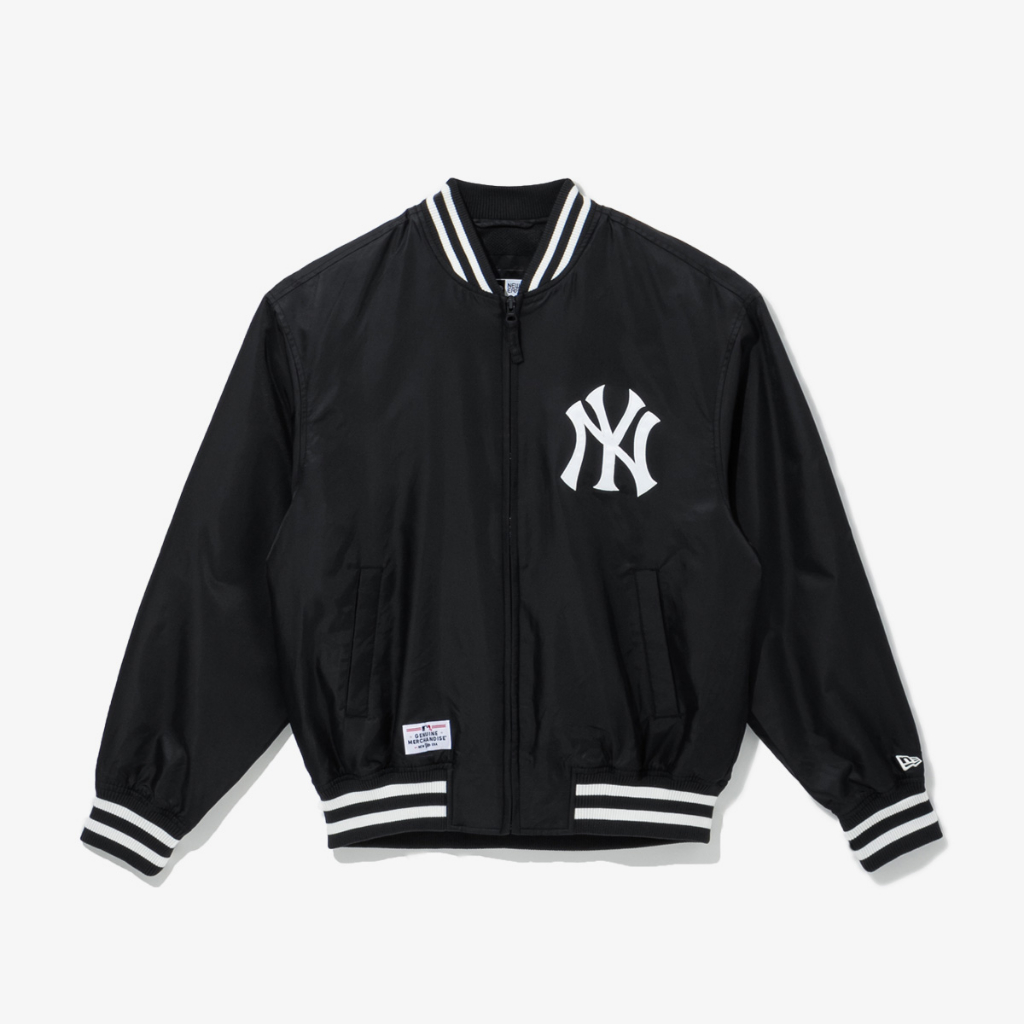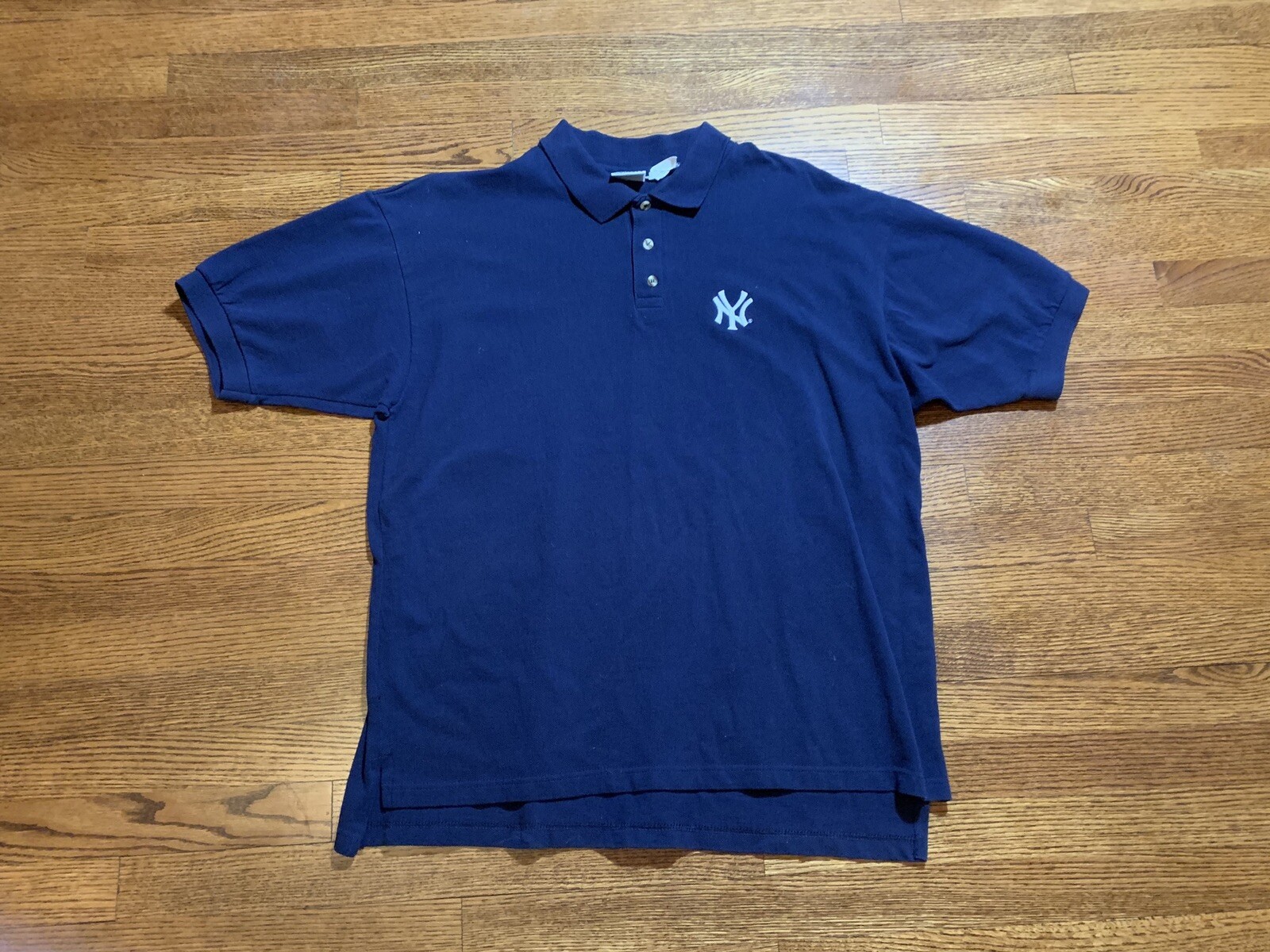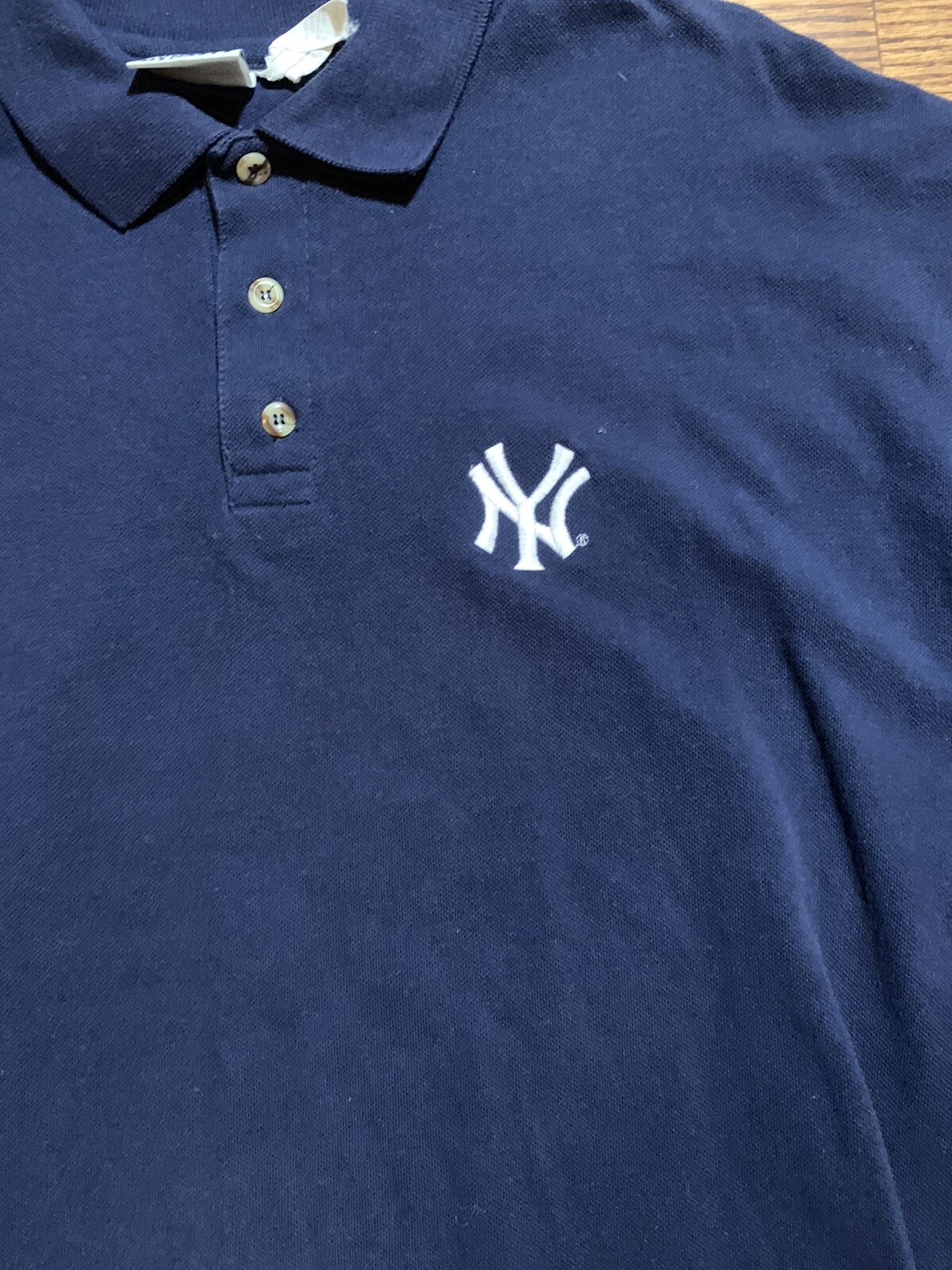
Ny Yankee Logo Font . Yankees font copy and paste. Explore yankees fonts at myfonts. Click to find the best 3 free fonts in the yankees style. This font was designed to mimic the iconic new york yankees baseball team logo. Unlock ny yankees logo font: Download this iconic font for your creative projects. Unleash your design potential today! All you need to do is type an uppercase or lowercase p. Discover a world of captivating typography for your creative projects. This font has 417 glyphs and 224 characters. Transform plain text into eye. Every font is free to download! Mlb al is the font you would probably need. Discover the modified copperplate gothic bold for sports designs. Text effect studio is an online tool for creating stylish text images and logos.
Explore yankees fonts at myfonts. We also found the match font for the old logo, which was the very first logo with stylized interlocking ny. Yankees font copy and paste. Unlock ny yankees logo font: Every font is free to download! Unleash your design potential today! Download this iconic font for your creative projects. You will find the exact logo in the symbolic font called m lb al font. Click to find the best 3 free fonts in the yankees style. This font was designed to mimic the iconic new york yankees baseball team logo.
Ny Yankee Logo Font Unlock ny yankees logo font: Discover the modified copperplate gothic bold for sports designs. Click to find the best 3 free fonts in the yankees style. This font was designed to mimic the iconic new york yankees baseball team logo. Yankees font copy and paste. We also found the match font for the old logo, which was the very first logo with stylized interlocking ny. Download this iconic font for your creative projects. You will find the exact logo in the symbolic font called m lb al font. Every font is free to download! This font was designed to mimic the iconic new york yankees baseball team logo. Explore yankees fonts at myfonts. Mlb al is the font you would probably need. This font has 417 glyphs and 224 characters. All you need to do is type an uppercase or lowercase p. Unlock ny yankees logo font: Transform plain text into eye.
New York Yankees Polo Ralph Lauren Estate QuarterZip Sweatshirt Ny Yankee Logo Font This font has 417 glyphs and 224 characters. Transform plain text into eye. Mlb al is the font you would probably need. Discover the modified copperplate gothic bold for sports designs. Explore yankees fonts at myfonts. This font was designed to mimic the iconic new york yankees baseball team logo. Unlock ny yankees logo font: Every font is free to. Ny Yankee Logo Font.
Men's New York Yankees Polo Ralph Lauren Green Pullover Sweatshirt Ny Yankee Logo Font We also found the match font for the old logo, which was the very first logo with stylized interlocking ny. You will find the exact logo in the symbolic font called m lb al font. Download this iconic font for your creative projects. This font was designed to mimic the iconic new york yankees baseball team logo. Click to find. Ny Yankee Logo Font.
New York Yankees 2024 MLB American League logo vintage shirt, hoodie Ny Yankee Logo Font This font was designed to mimic the iconic new york yankees baseball team logo. Text effect studio is an online tool for creating stylish text images and logos. This font has 417 glyphs and 224 characters. You will find the exact logo in the symbolic font called m lb al font. Download this iconic font for your creative projects. Click. Ny Yankee Logo Font.
New York Yankees Polo Ralph Lauren Pullover Hoodie Green Ny Yankee Logo Font Yankees font copy and paste. You will find the exact logo in the symbolic font called m lb al font. Explore yankees fonts at myfonts. Click to find the best 3 free fonts in the yankees style. All you need to do is type an uppercase or lowercase p. Discover a world of captivating typography for your creative projects. Download. Ny Yankee Logo Font.
New York Yankees Fanatics Authentic 2024 American League Champions Ny Yankee Logo Font Unleash your design potential today! This font was designed to mimic the iconic new york yankees baseball team logo. This font was designed to mimic the iconic new york yankees baseball team logo. Unlock ny yankees logo font: Text effect studio is an online tool for creating stylish text images and logos. Explore yankees fonts at myfonts. This font has. Ny Yankee Logo Font.
Cutter & Buck New York Yankees Black Traverse Eco Stripe TriBlend Ny Yankee Logo Font Transform plain text into eye. All you need to do is type an uppercase or lowercase p. Text effect studio is an online tool for creating stylish text images and logos. Click to find the best 3 free fonts in the yankees style. Mlb al is the font you would probably need. Yankees font copy and paste. We also found. Ny Yankee Logo Font.
New York Yankees 2024 MLB American League logo vintage shirt, hoodie Ny Yankee Logo Font Unleash your design potential today! Mlb al is the font you would probably need. Yankees font copy and paste. Download this iconic font for your creative projects. This font was designed to mimic the iconic new york yankees baseball team logo. You will find the exact logo in the symbolic font called m lb al font. Click to find the. Ny Yankee Logo Font.
New York Yankees Cutter & Buck Big & Tall Pike Eco Diamond Dot Print Ny Yankee Logo Font Yankees font copy and paste. Text effect studio is an online tool for creating stylish text images and logos. All you need to do is type an uppercase or lowercase p. Unleash your design potential today! This font was designed to mimic the iconic new york yankees baseball team logo. This font has 417 glyphs and 224 characters. We also. Ny Yankee Logo Font.
New York Yankees Fanatics Dueling Logos Polo Combo Set Navy/Gray Ny Yankee Logo Font This font was designed to mimic the iconic new york yankees baseball team logo. Text effect studio is an online tool for creating stylish text images and logos. Discover a world of captivating typography for your creative projects. Discover the modified copperplate gothic bold for sports designs. Unlock ny yankees logo font: Mlb al is the font you would probably. Ny Yankee Logo Font.